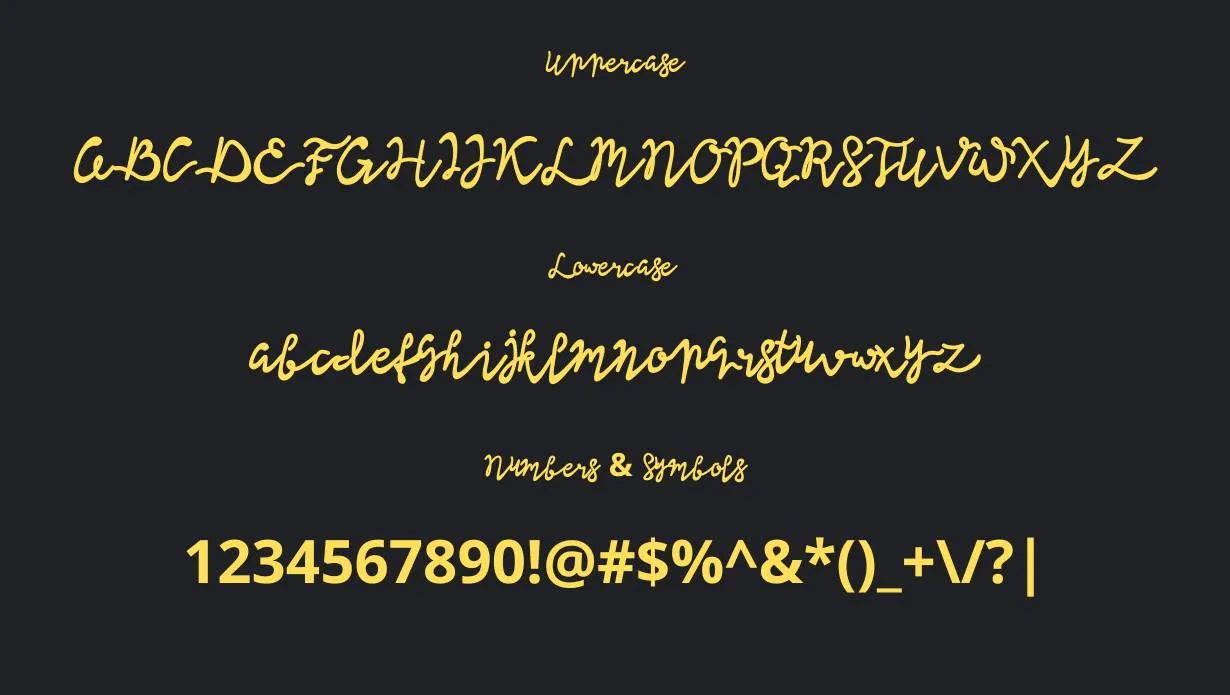
The Lisna font exhibits a delicate and decorative style, often used in feminine designs, beauty products, or wedding materials.
| Name | Lisna Font |
| Designer | Edric Studio |
Its graceful appearance adds a touch of elegance and refinement to design elements targeting a more delicate and feminine audience, making it a great choice for projects with a feminine and elegant aesthetic.